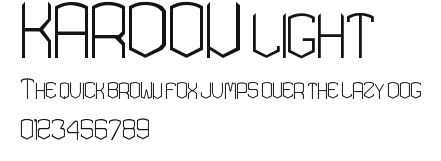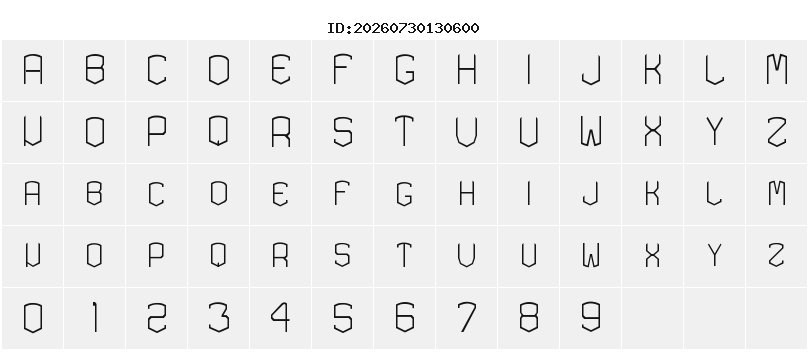
• Font Name: KARDON light
• Full Font Name: KARDON-light
• PostScript Name: KARDON-light
• Manufacturer: MRfrukta (Frolov Alexey)
About KARDON light.ttf
KARDON light.ttf is a modern, elegant sans-serif font designed for ultimate readability and visual harmony. Perfect for branding, headlines, web design, and print materials.